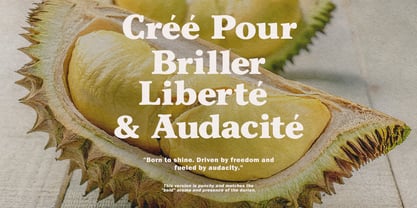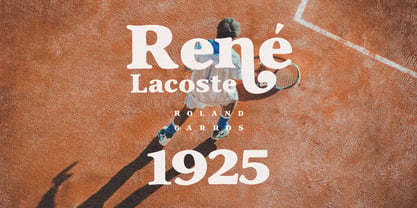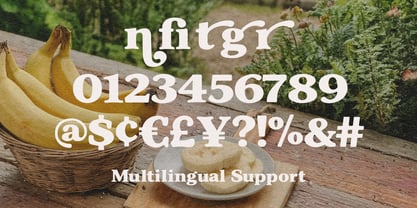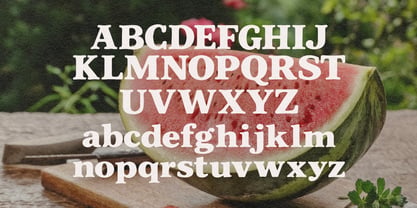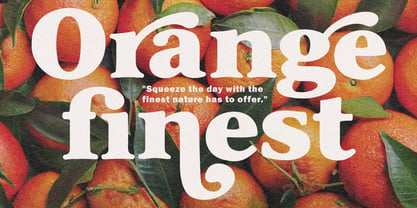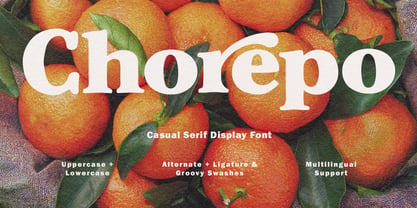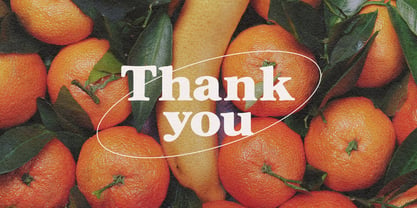
MC Chorepo
par Maulana Creative
La famille de polices MC Chorepo a été conçue par Gilang Maulana et publiée par Maulana Creative. MC Chorepo contient 1 styles. En savoir plus sur cette famille
Chorepo is a bold, expressive casual serif display font that blends retro charm with modern playfulness. Featuring thick, punchy strokes and unique "groovy swashes," this typeface is designed to stand out in branding, packaging, and headlines. It includes a full set of uppercase and lowercase letters, creative alternates, ligatures, and comprehensive multilingual support, making it as versatile as it is eye-catching.
Concepteurs: Gilang Maulana
Fonderie: Maulana Creative